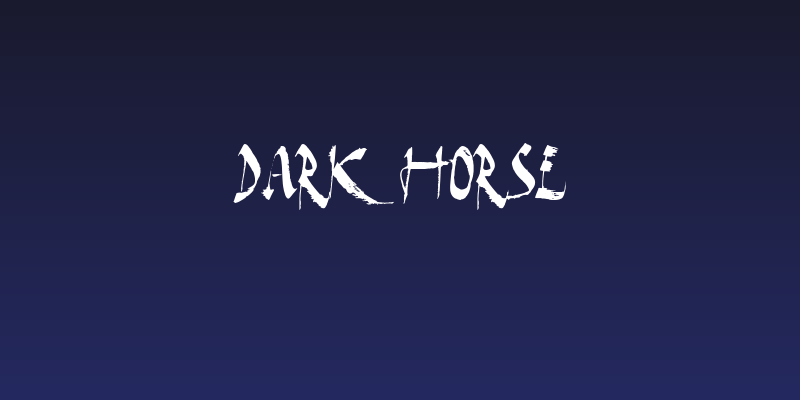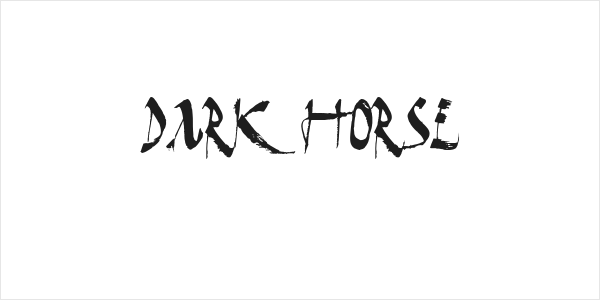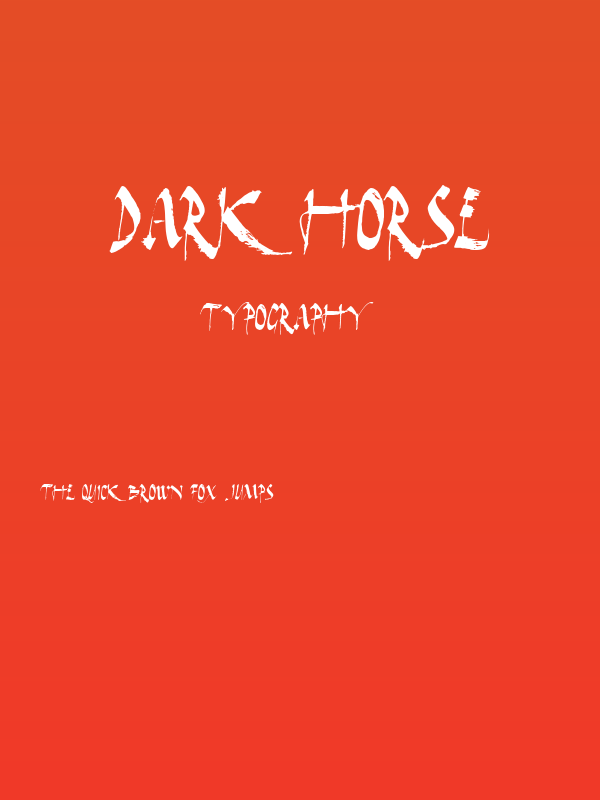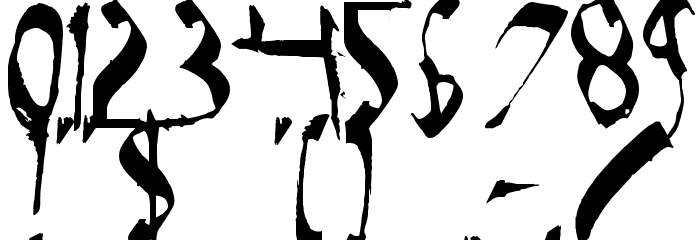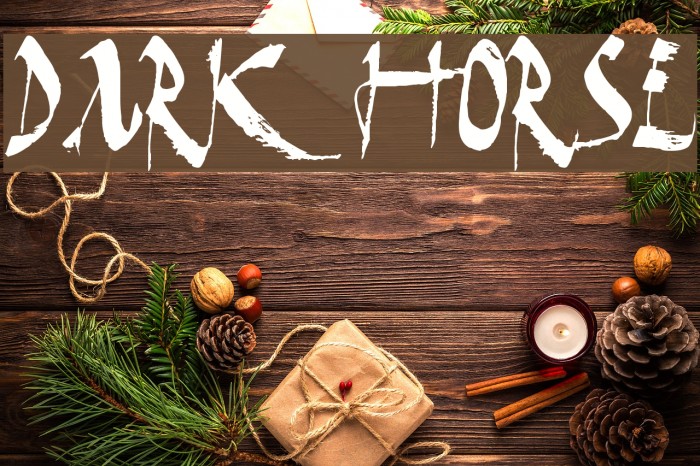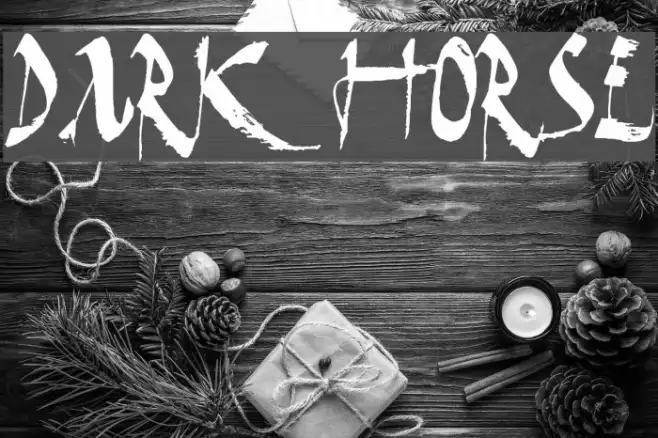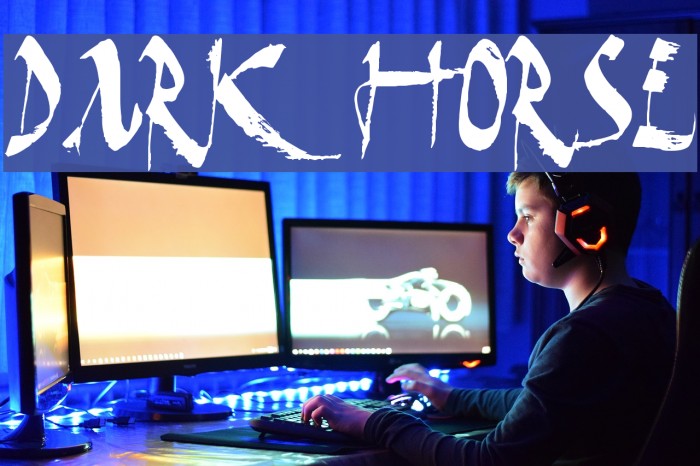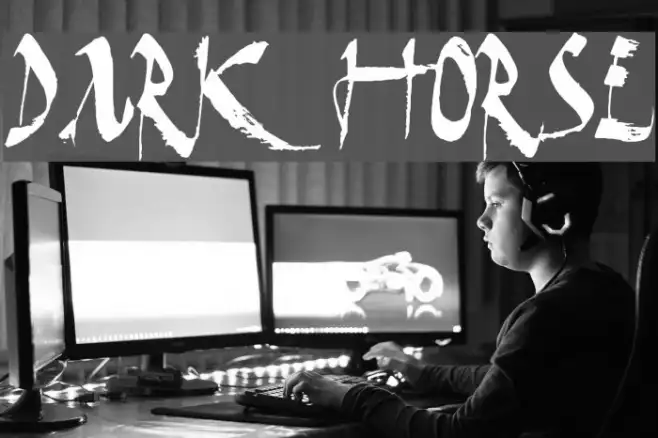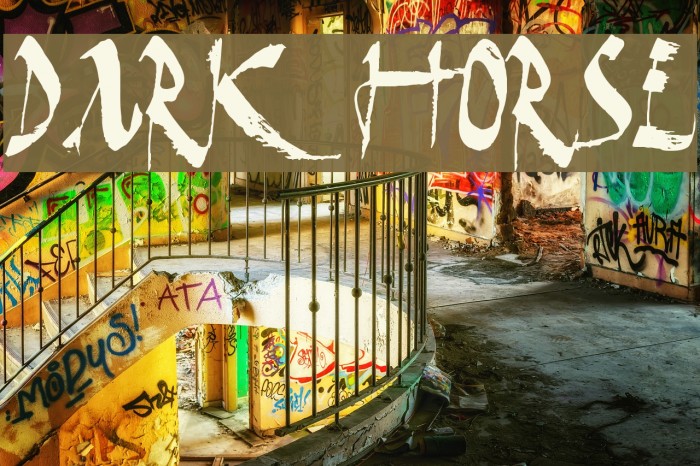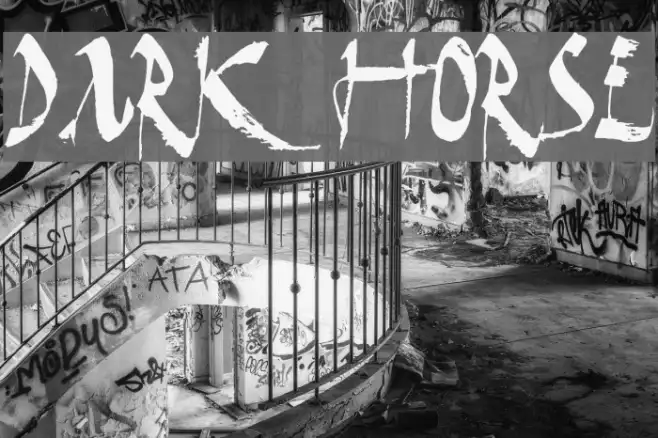
Dark Horse Font
Dark Horse Description
This font exhibits a bold and expressive style, characterized by its brush-like strokes and dynamic, flowing forms. The letters have a hand-drawn appearance, with varying thicknesses that create a sense of movement and energy. The uppercase and lowercase letters maintain a consistent style, with sharp angles and elongated curves that give the font a dramatic and artistic flair. The numbers and special characters follow the same aesthetic, ensuring a cohesive look across all elements. This font is ideal for projects that require a strong visual impact and a touch of creativity.
| Proposed Projects | Ideal for posters, album covers, branding, and any design needing a bold, artistic touch. |